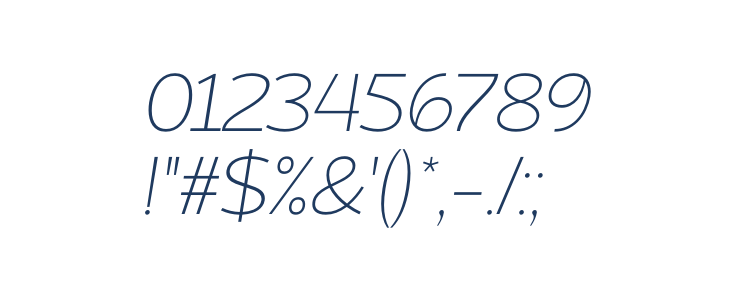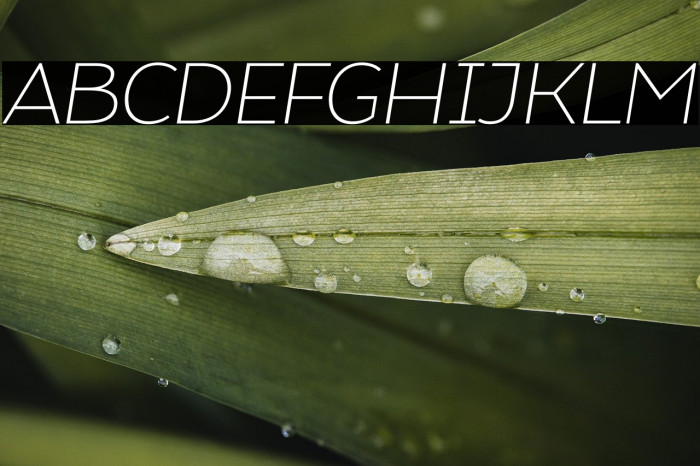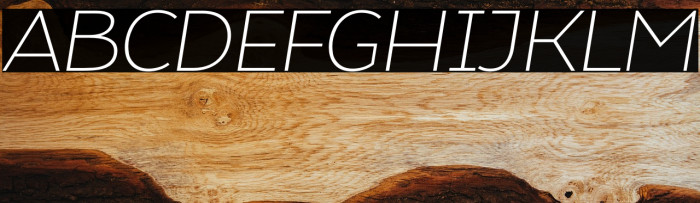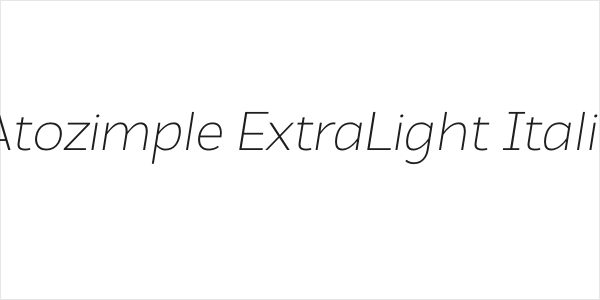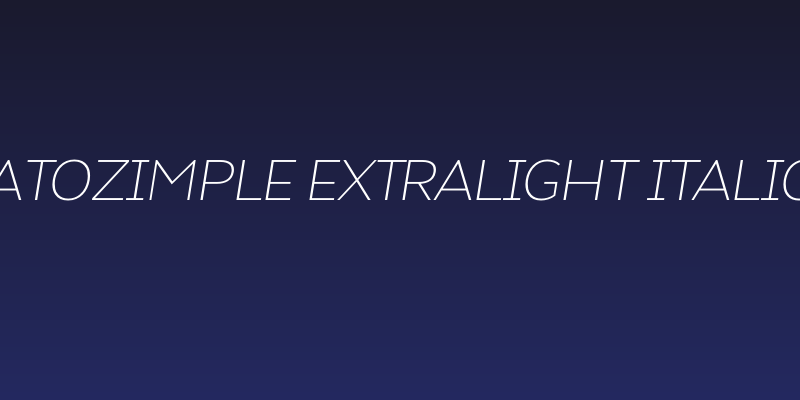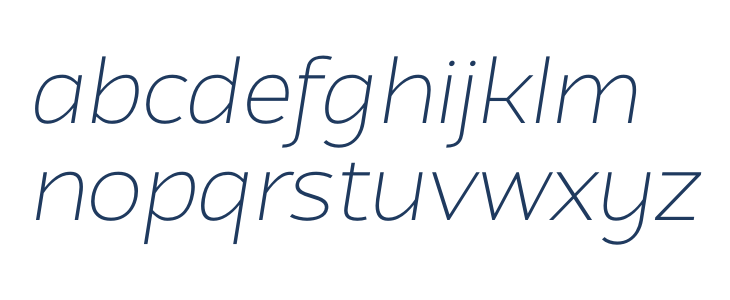
Atozimple ExtraLight Italic Font
Atozimple ExtraLight Italic Description
This font features a sleek and modern design with an extra light weight and italic style. The characters are elegantly crafted with smooth curves and a slight slant, giving it a sophisticated and contemporary appearance. The uppercase letters are tall and slender, while the lowercase letters maintain a consistent flow, enhancing readability. The numerals are clean and align well with the overall aesthetic, making it suitable for various design applications. Special characters are included, maintaining the font's cohesive look. Its minimalistic approach makes it versatile for both digital and print media.